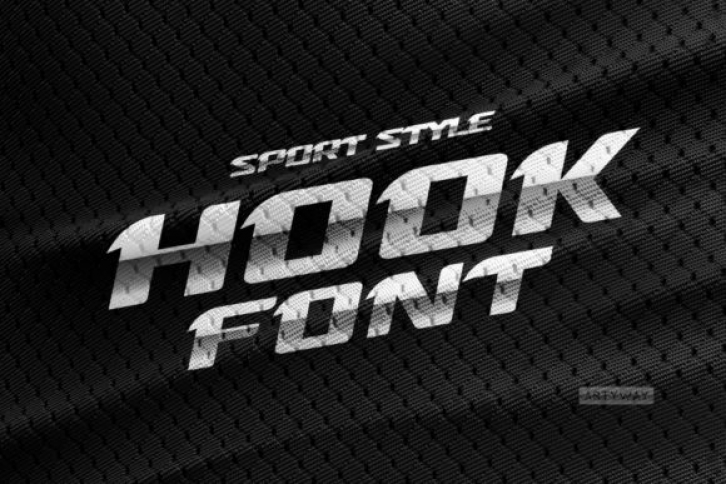
Hook is an amazing display font. It features a dynamic effect and sharp corners. It’s perfect for headlines, for sports events, gym or automotive posters, logo or monograms designs.